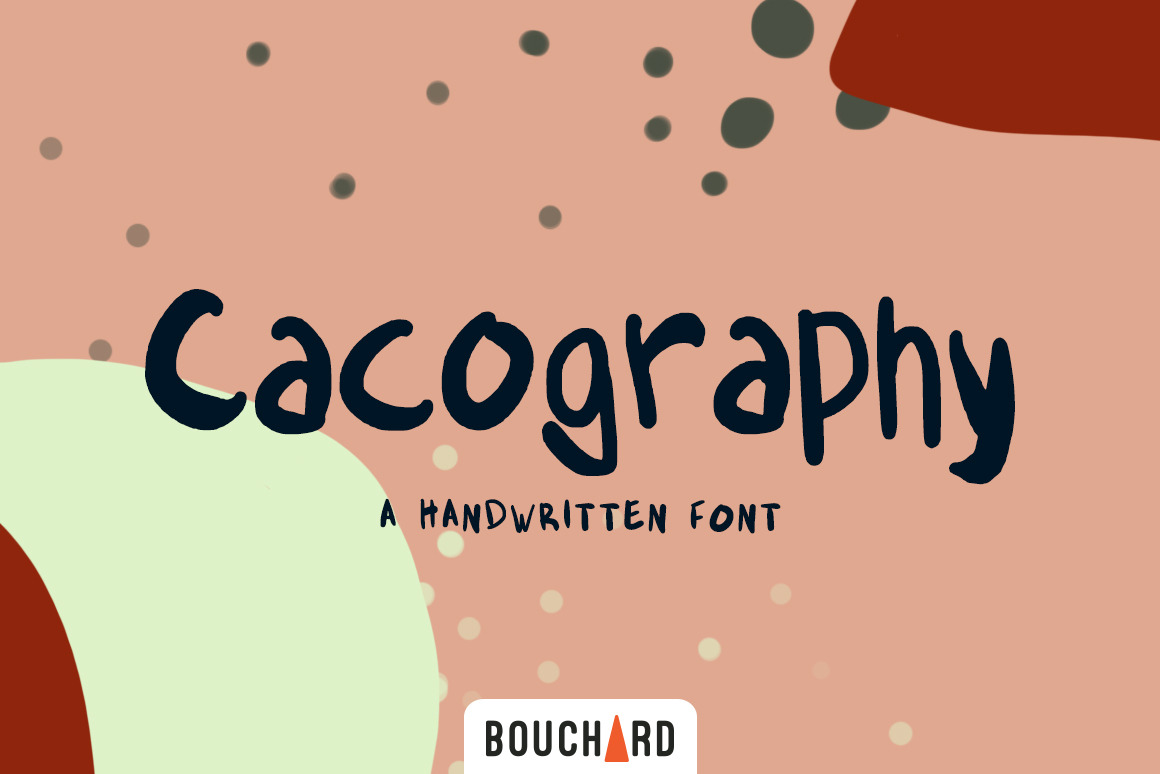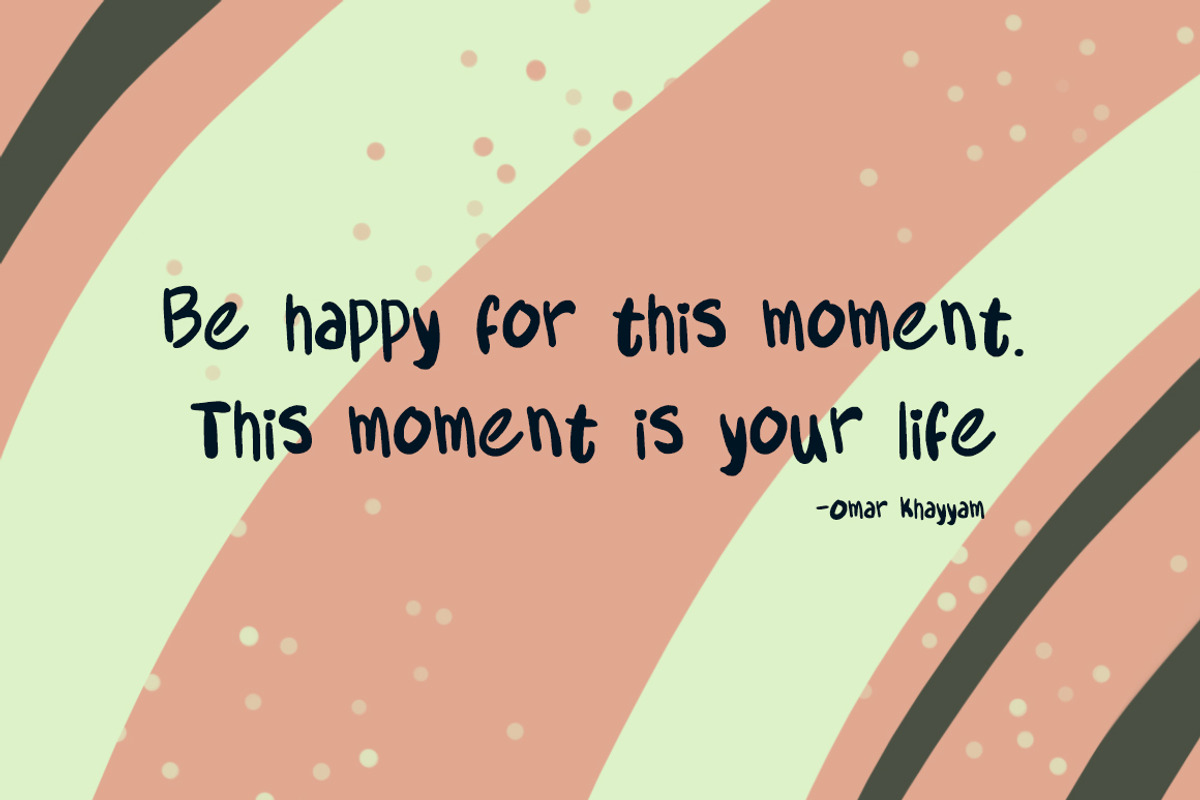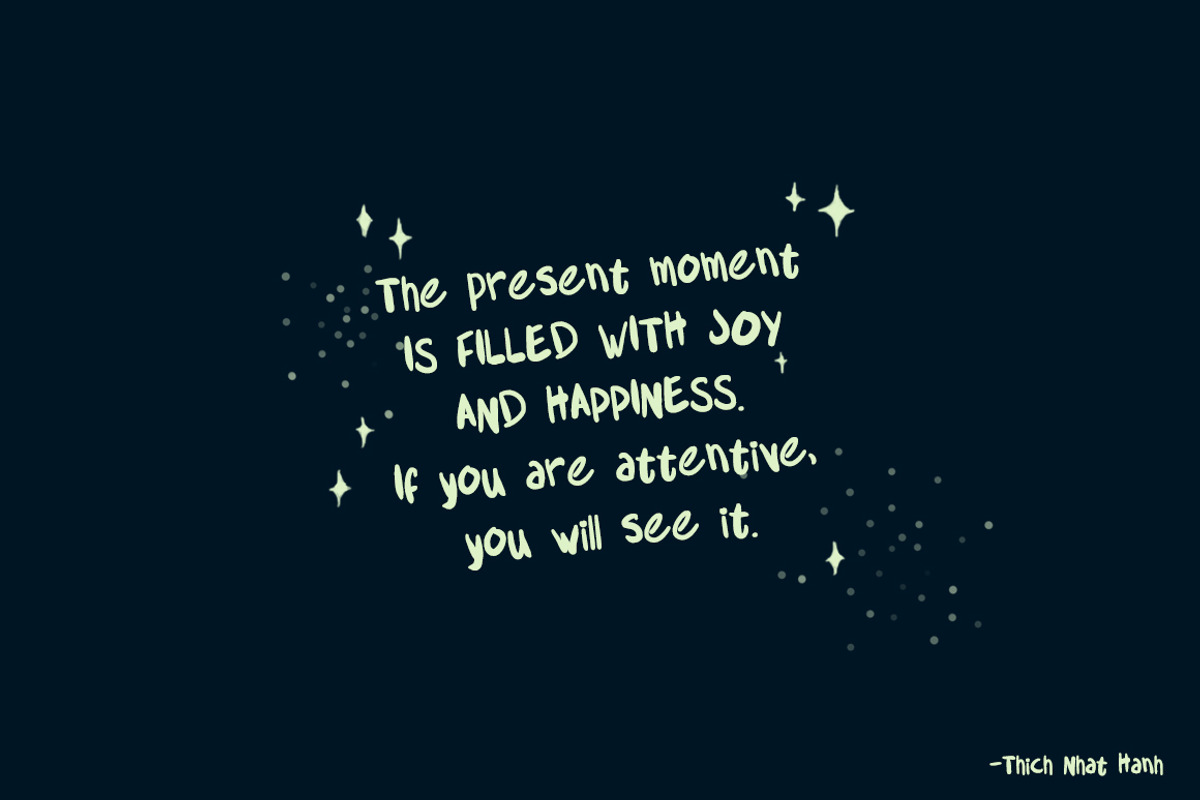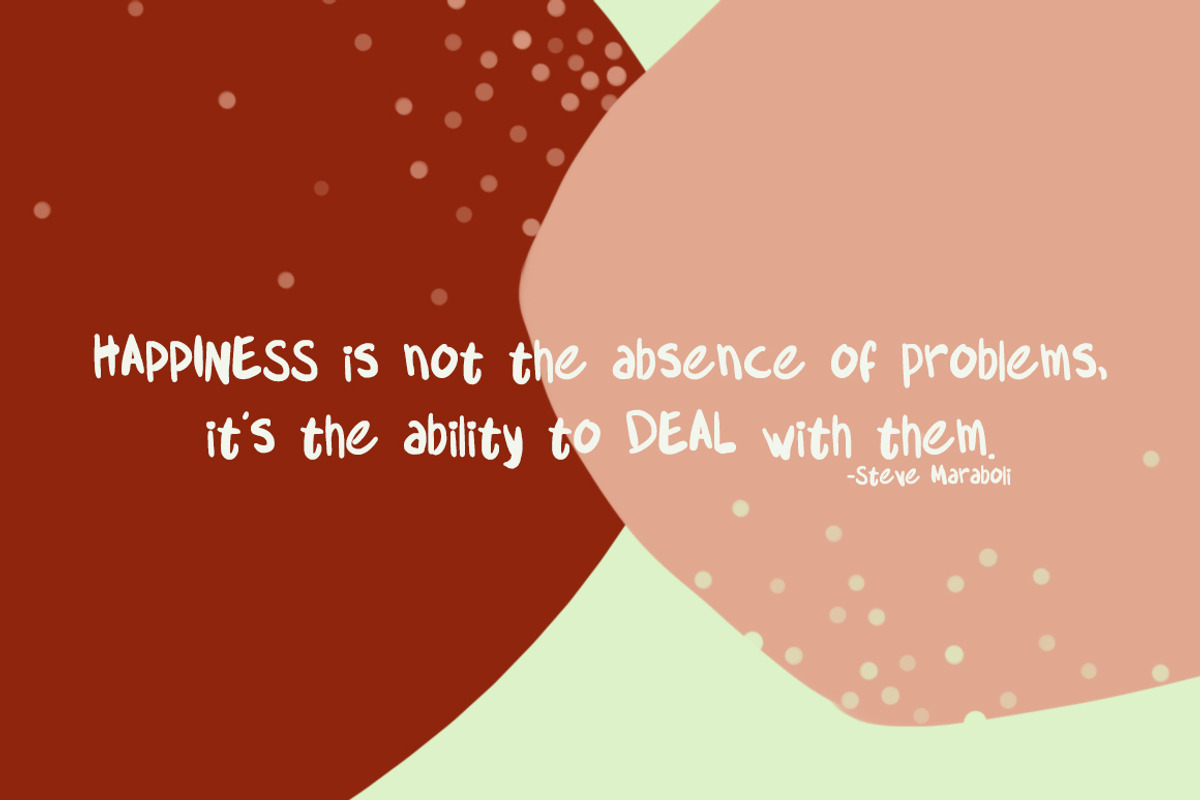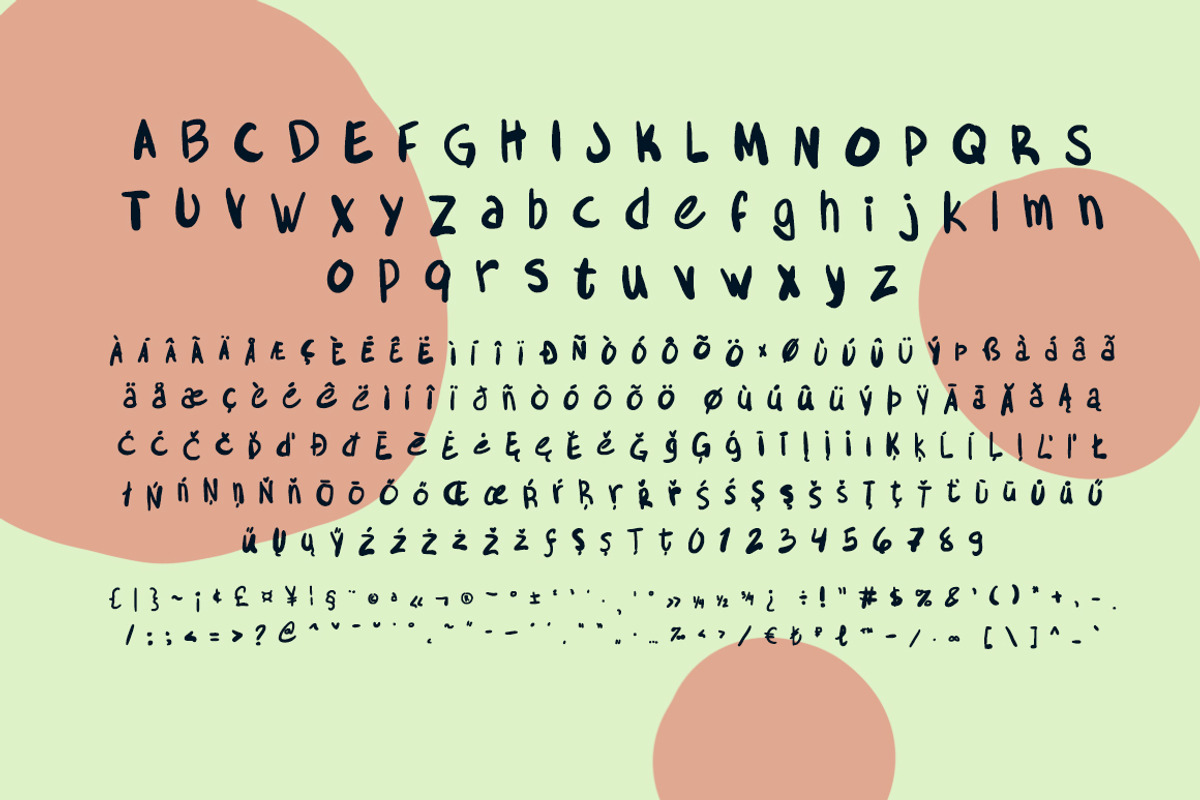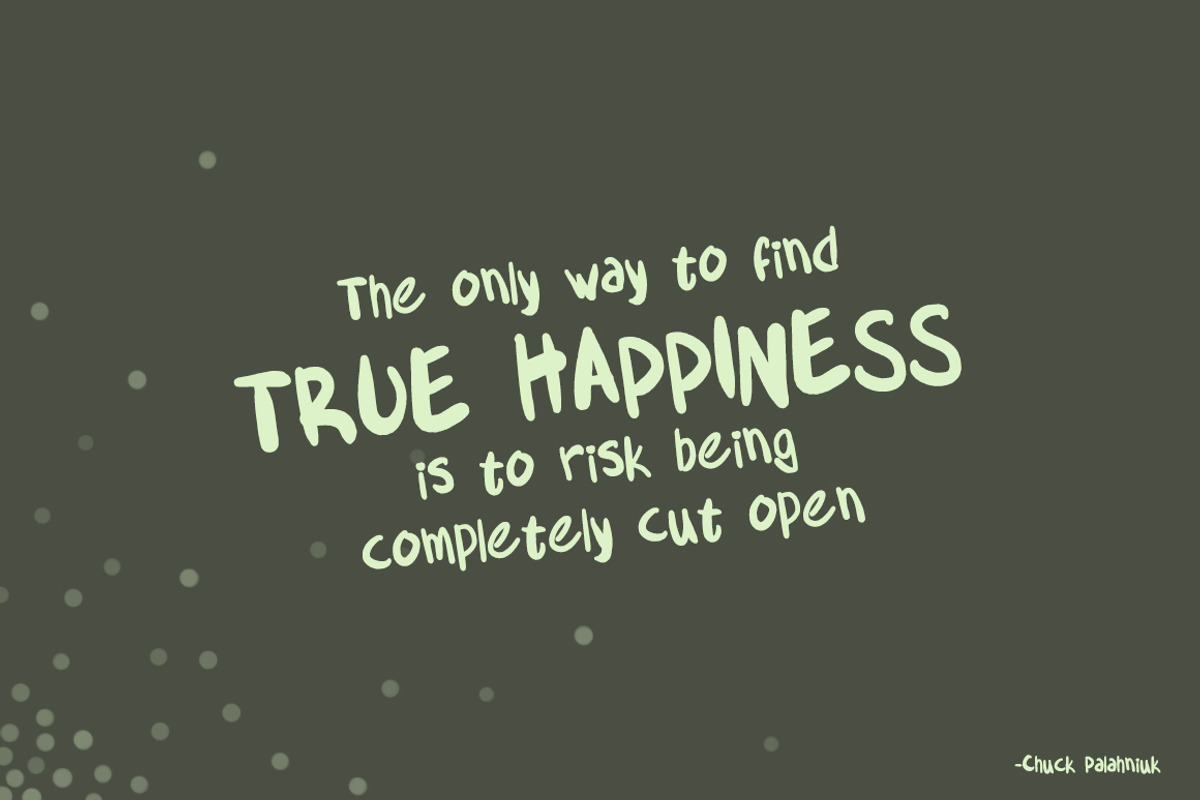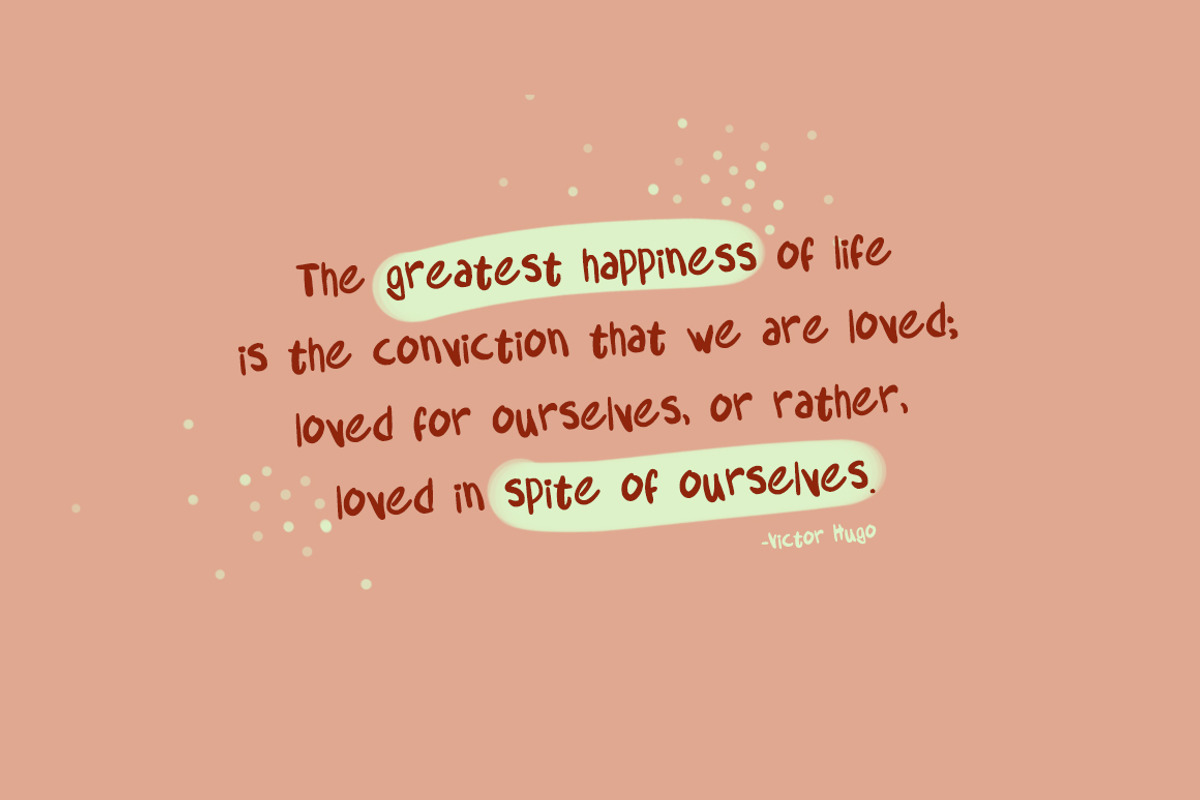
Cacography - Handwritten Font
Cacography is a handwritten display font that comes in uppercase and lower case and includes accents, numbers and punctuation.
Perfect for logo designs, packaging, book covers or any other designs that benefit from bold headings.